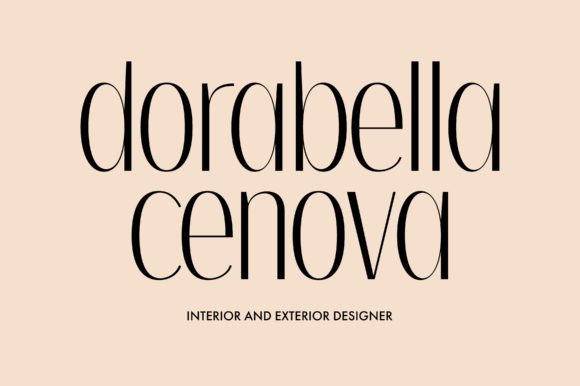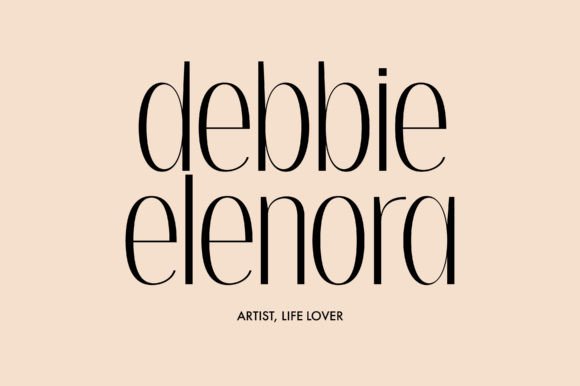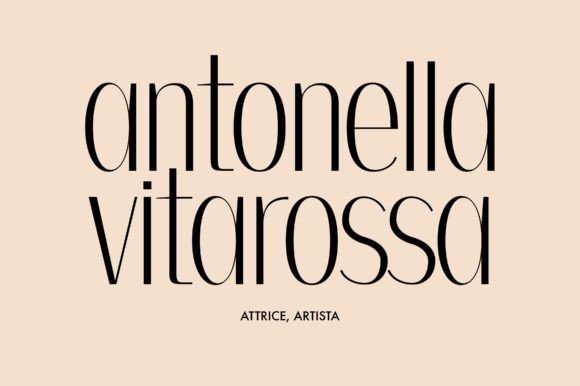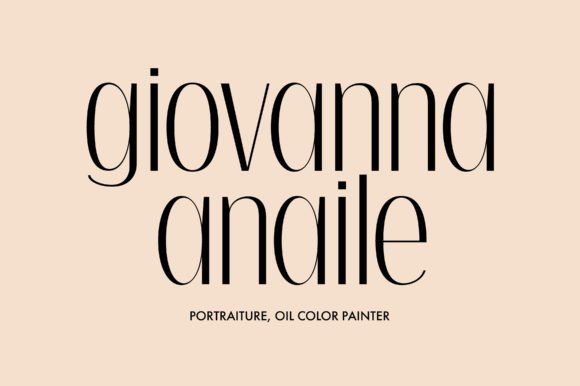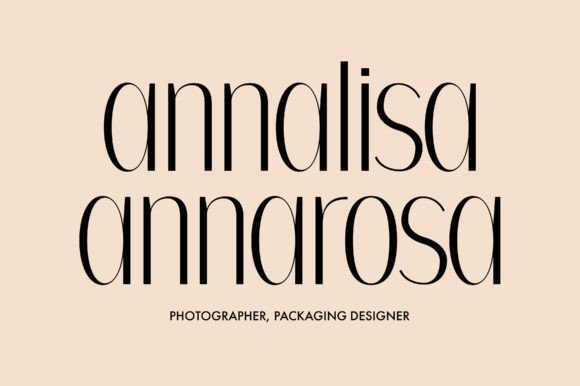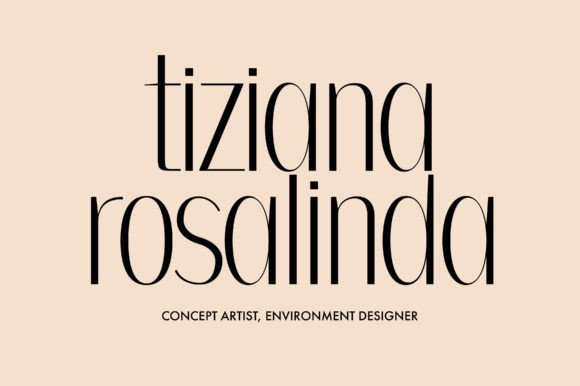
Discovering the Perfect Balance: The Beddia Font
Have you ever been working on a design project, pouring your heart and soul into every detail, and just can’t seem to find the right font to tie everything together? You’ve scoured through countless options, only to end up with something that feels too safe or too bland. I’ve been there too, and it’s frustrating to say the least.
That’s why I’m excited to introduce you to Beddia Font, a delicate and sophisticated sans serif font that’s perfect for adding a touch of elegance to any project. With its smooth curves and clean lines, Beddia creates a refined and polished look that’s sure to elevate your designs. Whether you’re working on fashion branding, editorial layouts, or anything in between, Beddia Font is a valuable addition to your design toolkit.
As a designer, you know that the right font can make all the difference in capturing the essence of your brand or message. Beddia Font is a unique and versatile option that’s sure to impress, and its subtle details and distinctive letterforms make it stand out from the crowd.
Beddia Font Key Features
- Font Family: Beddia is a unique sans-serif font designed for digital use.
- Size: Beddia is available in 5 font weights: Light, Regular, Medium, Bold, and Black.
- Resolution: Designed for high-resolution displays, Beddia is ideal for use on screens with resolutions up to 4K.
- Unique Characteristics: Beddia features a distinctive geometric shape and clean lines, making it suitable for modern and minimalist designs.
Beddia Font Review
Beddia Font is a display font that’s perfect for making a statement. It’s great for use in headings, titles, and other situations where you want to add a touch of elegance and sophistication to your design. ✨ I love the way it combines classic and modern elements to create a unique look that’s both timeless and trendy. ✨ The font is highly customizable, with a wide range of options for adjusting the spacing, weight, and other parameters.
One of the things I like most about Beddia Font is its versatility. It works well in a variety of contexts, from fashion and beauty to food and travel. ✨ It’s also a great choice for creating a brand identity, as it’s easy to recognize and remember.
- Unique blend of classic and modern elements
- Works well in a variety of contexts
- Elegant and sophisticated look
- May be difficult to read at small font sizes
- Not suitable for body text or large blocks of text
- May require additional styling to make it stand out
Overall, I think Beddia Font is a great choice for designers who want to add a touch of sophistication and elegance to their designs. While it may have some limitations, its unique look and high level of customizability make it a valuable addition to any designer’s toolkit.
For optimal results, use Beddia Font in combination with a clean and simple design. Avoid using it in small text sizes, as it may become difficult to read.
Beddia Font is ideal for:
- Personalized gifts and stationery
Alternatives to Beddia Font
Great Vibes is a modern, elegant script font that is perfect for adding a touch of sophistication to your designs. It features flowing connections and beautiful letterforms that are ideal for headings, titles, and quotes. Great Vibes is a more ornate and luxurious alternative to Beddia Font, making it suitable for high-end branding and packaging.
Amarante
Amarante is a beautiful, handwritten font that is reminiscent of classic calligraphy. It features a mix of modern and traditional elements, making it perfect for adding a touch of whimsy to your designs. Amarante is a more rustic and earthy alternative to Beddia Font, making it suitable for rustic, vintage, or outdoor-themed designs.
Carolyna Pro is a modern, elegant script font that is perfect for adding a touch of sophistication to your designs. It features flowing connections and beautiful letterforms that are ideal for headings, titles, and quotes. Carolyna Pro is a more refined and polished alternative to Beddia Font, making it suitable for high-end branding and luxury packaging.
Montserrat is a modern sans-serif font that is perfect for adding a touch of urban sophistication to your designs. It features a geometric, industrial feel that is ideal for headings, titles, and body text. Montserrat is a more modern and edgy alternative to Beddia Font, making it suitable for tech, fashion, or urban-themed designs.